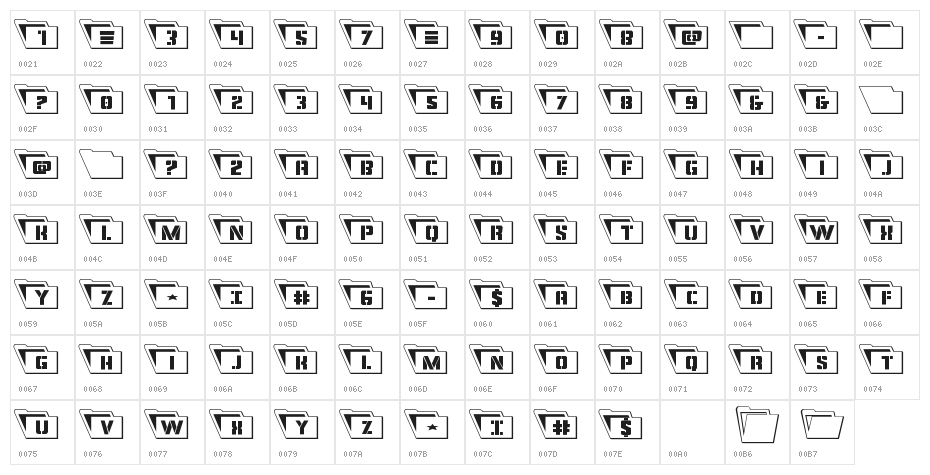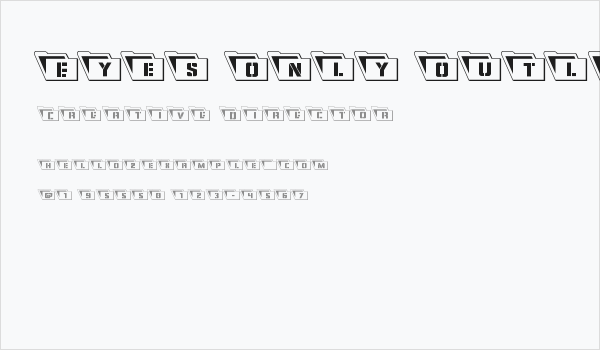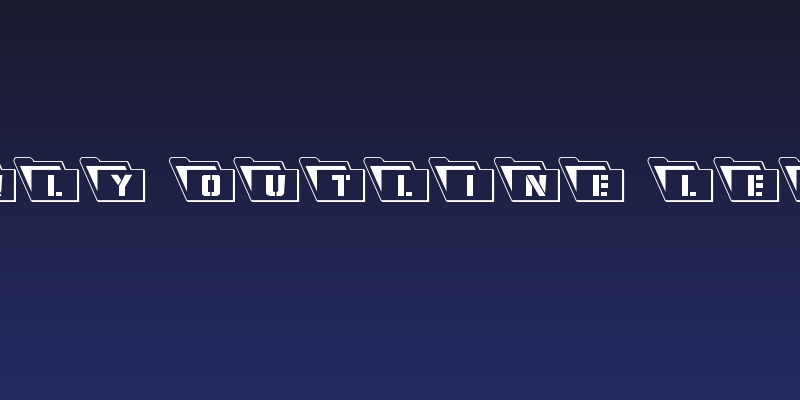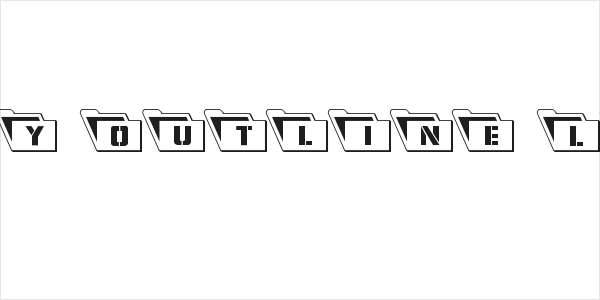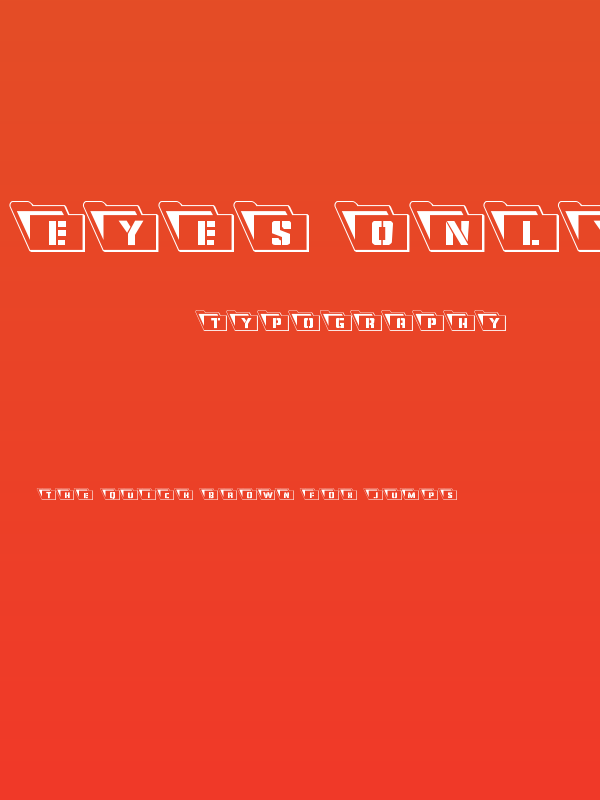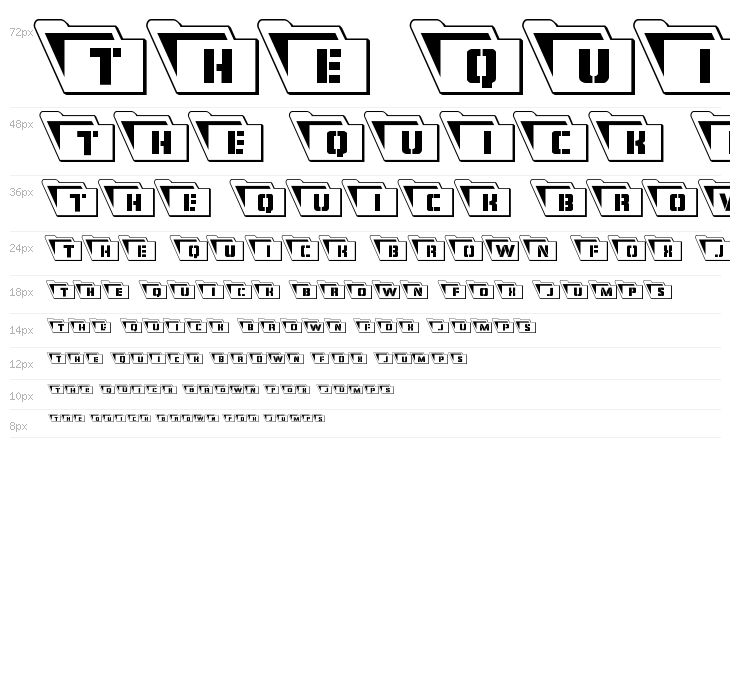
Eyes Only Outline Leftalic Font
Eyes Only Outline Leftalic Description
This font features a bold, three-dimensional design with a distinct shadow effect that gives each character a sense of depth and movement. The letters are uppercase and have a blocky, geometric style with sharp angles and clean lines. The shadow is cast to the left, creating an italicized appearance that adds a dynamic and modern touch. The font is highly decorative, making it ideal for attention-grabbing headlines or titles. Its unique style is both futuristic and playful, suitable for projects that require a bold statement.
| Overall Style | Modern, Futuristic |
| Proposed Projects | Ideal for posters, logos, video game titles, and any design needing a bold, futuristic aesthetic. |